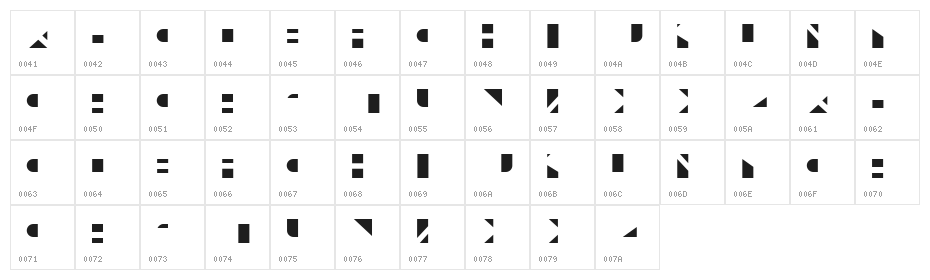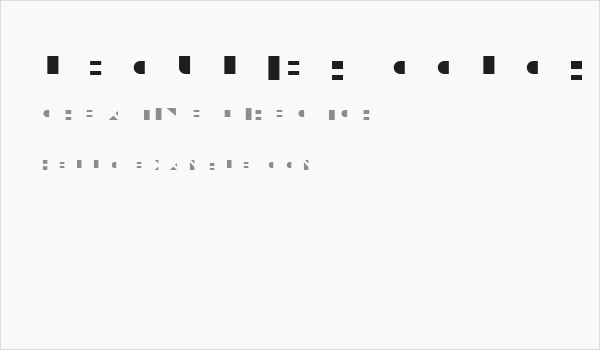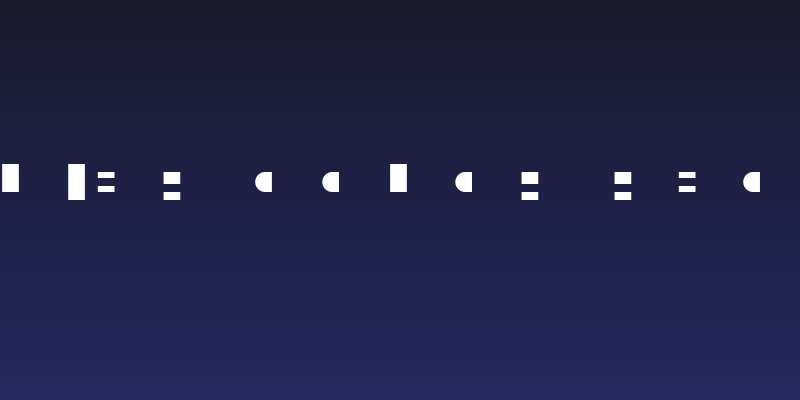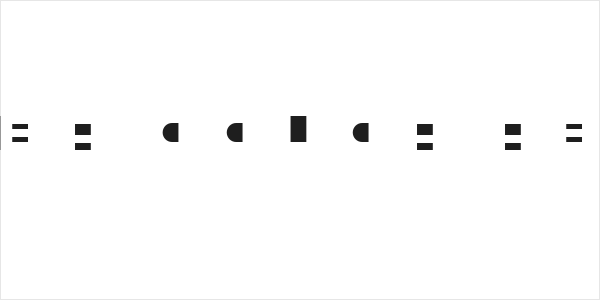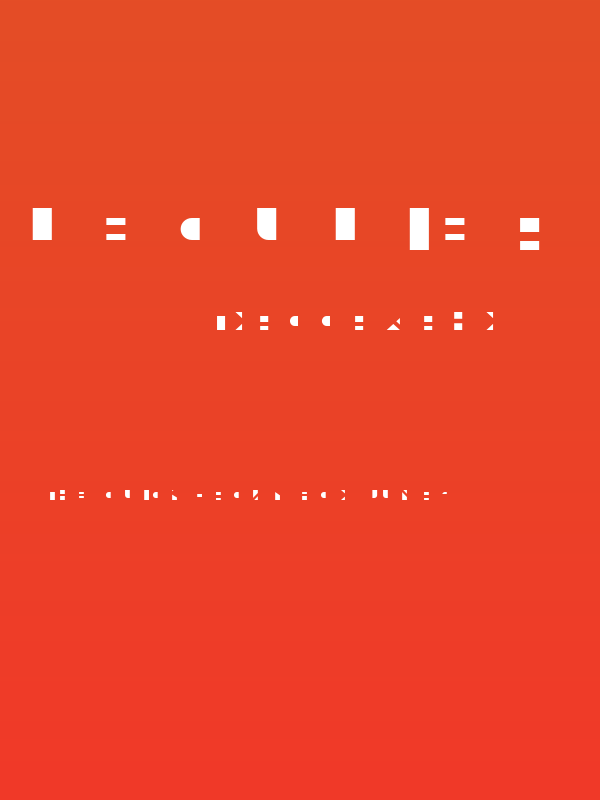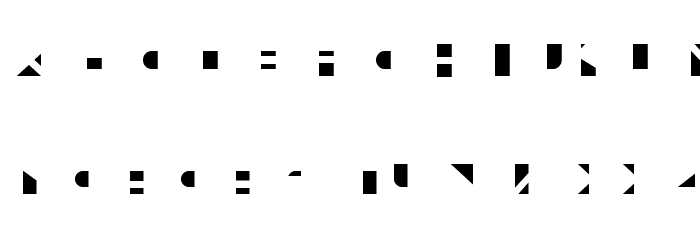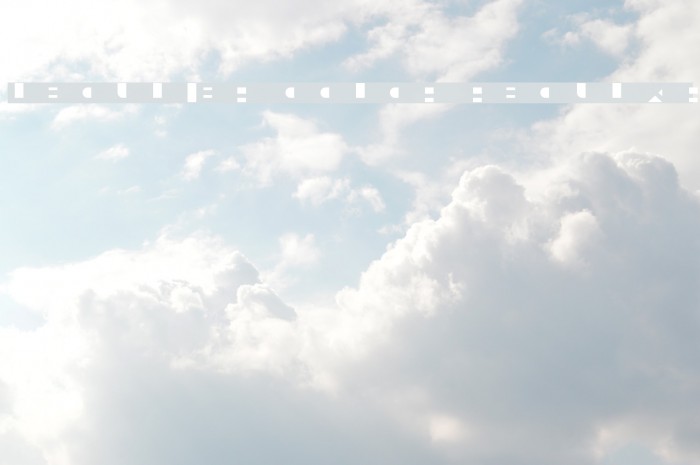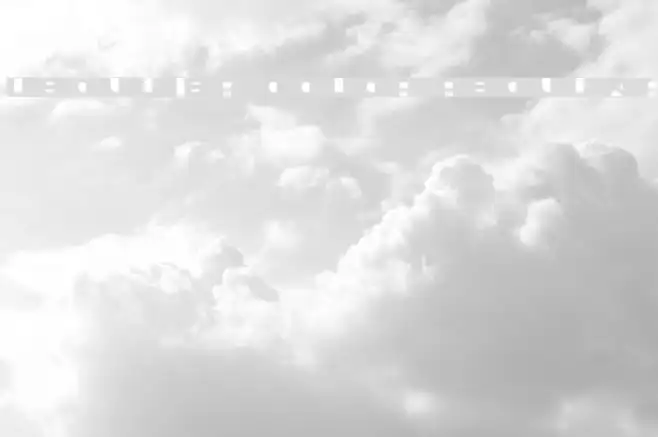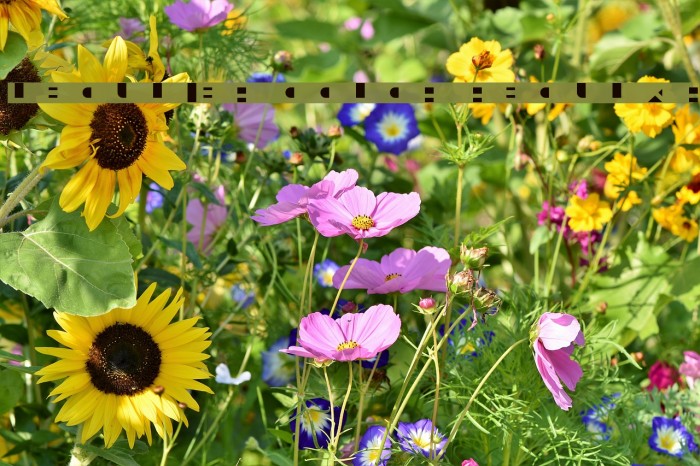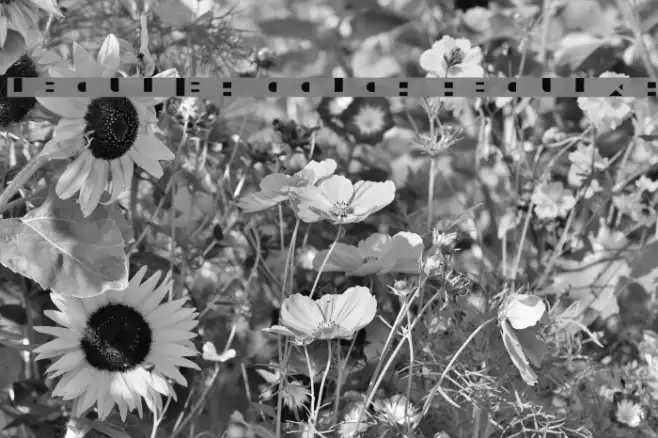
Leculier Color Regular Font
Leculier Color Regular Description
This font features a unique and modern design with a geometric and abstract style. Each character is composed of bold, solid shapes that create a striking visual impact. The letters are constructed with a combination of straight lines and sharp angles, giving them a futuristic and digital appearance. The font's design is consistent across uppercase, lowercase, numbers, and special characters, maintaining a cohesive look. Its distinct style makes it suitable for creative and contemporary projects that require a bold statement.